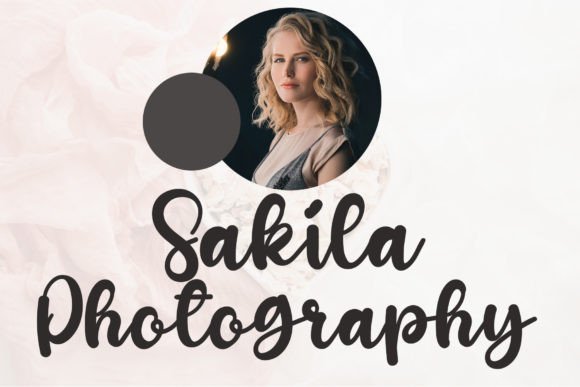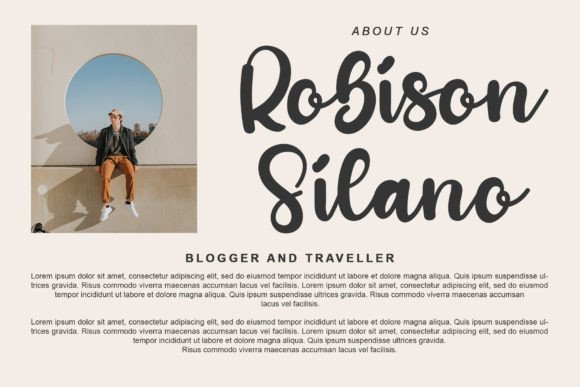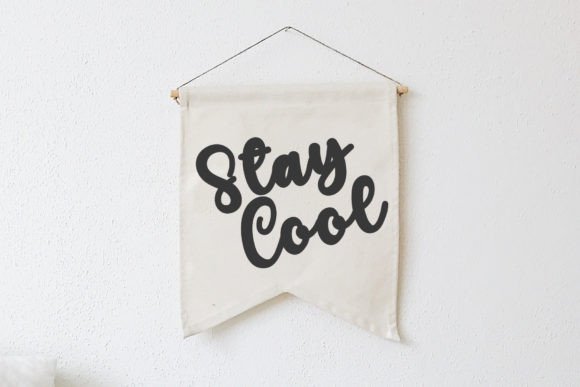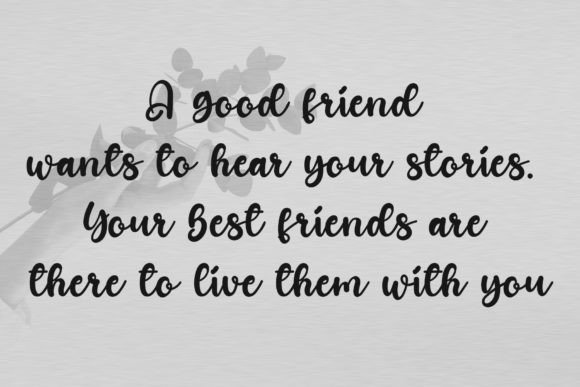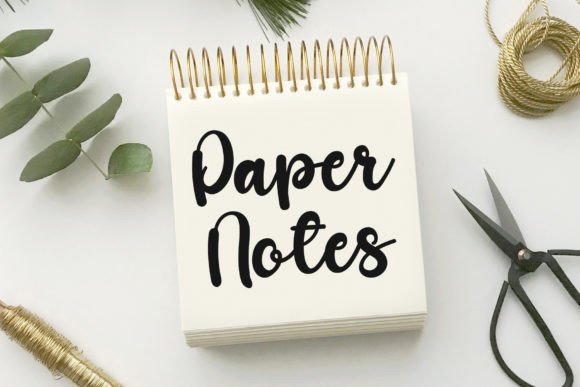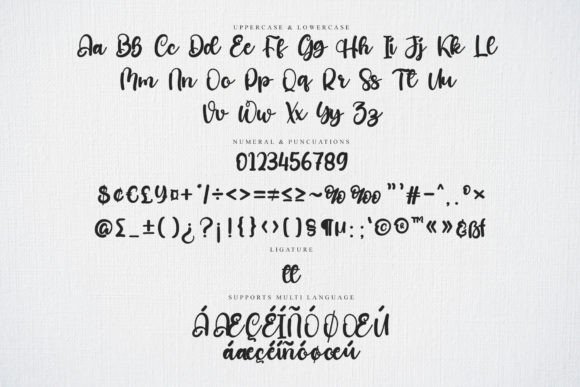
Introducing Billow Font: Elevate Your Designs with Timeless Elegance
In the world of typography, a well-crafted font can make all the difference in elevating your design projects from ordinary to extraordinary. If you’re a designer, crafter, or simply someone who appreciates the art of beautiful writing, you’ll love discovering the Billow Font. This stylish handwritten font boasts a contemporary atmosphere and impeccable form, drawing inspiration from timeless classic calligraphy.
The Inspiration Behind Billow Font
Billow Font is the result of a meticulous design process that aimed to balance modernity with classic elegance. The creators of Billow drew inspiration from traditional calligraphy, infusing it with a fresh and contemporary twist. The result is a font that exudes sophistication and refinement, perfect for designers and crafters seeking to add a touch of luxury to their projects.
Key Features of Billow Font
So, what makes Billow Font stand out from the crowd? Here are some of its key features:
- Balanced and Varied: Billow Font is designed to provide a perfect balance of style and legibility. Its varied letterforms ensure that your text remains engaging and easy to read.
- Contemporary Atmosphere: With its modern take on classic calligraphy, Billow Font brings a fresh and contemporary feel to your designs.
- Impeccable Form: Every letterform in Billow Font has been carefully crafted to ensure precision and attention to detail.
- Handwritten Charm: Billow Font retains the warmth and personality of handwritten script, making it perfect for projects that require a personal touch.
Use Cases for Billow Font
Billow Font’s versatility makes it suitable for a wide range of design projects, including:
- Branding and Logo Design: Create a lasting impression with a custom logo that incorporates Billow Font.
- Wedding and Event Stationery: Add a touch of elegance to your wedding invitations, menus, and other event materials.
- Packaging Design: Elevate your product packaging with a sophisticated font that reflects your brand’s personality.
- Digital Media: Use Billow Font in your social media graphics, blog posts, and website headers to create a cohesive brand image.
Tips for Using Billow Font Effectively
To get the most out of Billow Font, keep the following tips in mind:
- Pair with Neutral Backgrounds: Allow Billow Font to take center stage by pairing it with neutral backgrounds that won’t compete for attention.
- Experiment with Colors: Try out different color combinations to find the perfect match for your brand or design.
- Use for Headings and Titles: Billow Font is perfect for headings and titles, where its elegant style can shine.
In conclusion, Billow Font is a stunning addition to any designer’s toolkit. Its unique blend of classic calligraphy and modern style makes it perfect for a wide range of projects. Whether you’re a seasoned designer or a crafty DIY enthusiast, Billow Font is sure to inspire your creativity and elevate your designs to new heights.